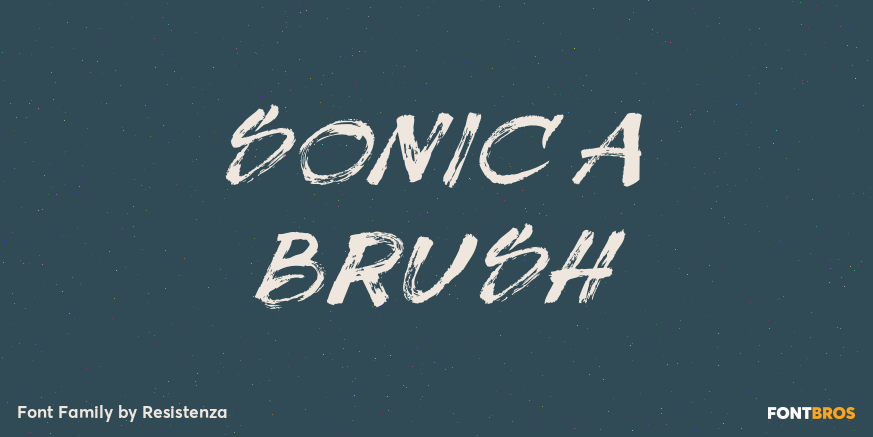
HomeFont BrosDistressedSonica Brush DistressedUrbanHandwritten Sonica Brush FacebookXPinterestWhatsApp 1 of 1 About Sonica Brush is a grungy, handwritten uppercase font, designed with a japanese brush and sumi ink.  DOWNLOAD ON FONT BROSThis font is sold and delivered by Font Bros. Font Canyon may earn a commission if you buy through this link. People also explored Yoga Woman Font Rotroys Font Victory Font Mock-Up Farmhouse Sign Christmas Vintage Font Herattine Font Brigitta Valetha Font Trendy Candy Font 290 0 TagsSonica Brush Font Previous articleVarsity ScriptNext articleLearning Curve Pro LEAVE A REPLY Cancel reply Comment: Please enter your comment! Name:* Please enter your name here Email:* You have entered an incorrect email address! Please enter your email address here Website: Save my name, email, and website in this browser for the next time I comment. Personal Use Free Mariyam Personal Use Free Read more about this font Sweet Someday Personal Use Free Read more about this font Bigstone Personal Use Free Read more about this font Fifty Five Personal Use Free Read more about this font BLOG Modern Sans-Serif Fonts That Brands Love in 2025 In 2025, modern sans-serif fonts remain a top choice for brands looking to project clarity, professionalism, and... Best Fonts for T-Shirt Design – Top 2025 Picks Top 7 Google Fonts Alternatives for Faster and Privacy-Friendly Web Design (2025) 5 Fonts That Will Dominate Design Trends in 2026